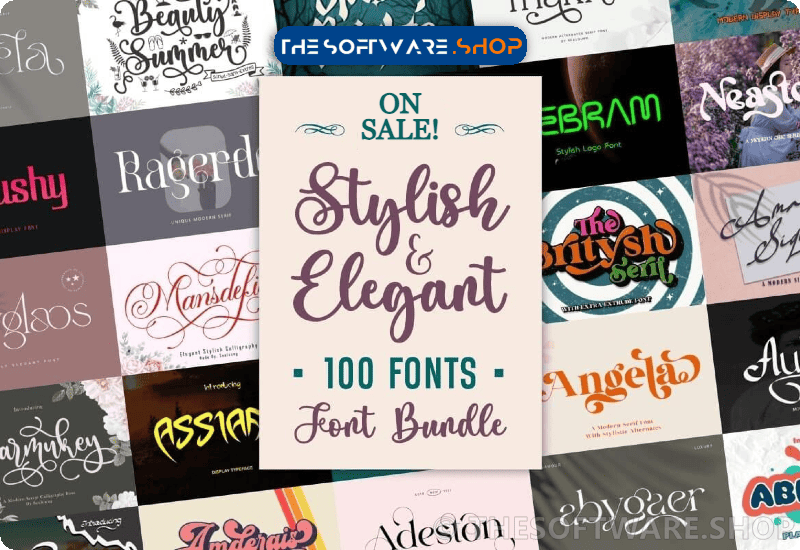
What is the Stylish & Elegant Font Bundle?
Except for empowering creativity, transforming your ordinary projects into eye-catching ones- it offers diversity right on your fingertips from romantic scripts to frightful displays!
Top Highlighted Fonts in the Bundle
The collection involves diverse types conforming to varying crafting needs well over hundred like:
- For an antiquely romantic aura where a mix of ‘Husband Romantic Script’ goes great with somber serif like ‘Asbigan Serif Fonts’.
- On festivities jolly as Christmas? The playful curve of ‘Kris Kringle Display’ font paired with beautifully stylistic “Christmas Time Script” is perfect!
- Are you into horror and all things scary? Perhaps the ‘Scary Ghost Display’ font might suffice your needs.
…and many more.
Premium fonts included in this bundle:
- Love Money Czcionki Skryptowe Czcionka
- Asbigan Serif Fonts Font
- Husband Romantic Script & Handwritten Font
- Belyna Script & Handwritten Font
- Sandelia Script & Handwritten Font
- Kris Kringle Display Font
- Mansdefia Script & Handwritten Font
- Nagista Script & Handwritten Font
- Angelina Script & Handwritten Font
- Little Aliens Display Font
- Adestone Font Serif Font Di Sealoung
- Vasmook Serif Font
- Mister Dogy Display Font
- Killega Serif Font
- Happy Easter Display Font
- Scary Ghost Display Font
- Hello Father Script & Handwritten Font
- Nergisha Serif Font
- Amderais Polices Manuscrites Police
- Giuconda Sans Serif Font
- Sugela Fuentes Serif Fuente
- Kambegi Serif Font
- Sakurata Display Font
- Abygaer Serif Font
- Britysh Display Font
- Myglaos Serif Font
- Ramadhan Amazing Polices d’Affichage Police
- Geraldyne Signature Script & Handwritten Font
- Christmas Time Script & Handwritten Font
- Rabenk Serif Font
- Beauty Summer Polices Manuscrites Police
- Battom Glory Blackletter Font
- Blondie Display Font
- Edhan Martine Serif Font
- Elyaris Serif Font
- Bodenk Display Font
- Barmukey Script & Handwritten Font
- Angela Serif Font
- Brithny Script & Handwritten Font
- Challiren Script & Handwritten Font
- Spooky Frights Display Font
- Hello Bucin Script & Handwritten Font
- Neastone Serif Font
- Lovelys Display Fonts Font
- Thaknus Serif Font
- Queen Display Fonts Font
- Amania Signature Script & Handwritten Font
- Ragerdo Serif Font
- Arithysh Eternal Script & Handwritten Font
- Domino Display Font
- Endellia Display Font
- Qebram Display Font
- Agoxes Game Display Font
- Sadeno Display Font
- Wuudy Cow Display Font
- Amellya Script & Handwritten Font
- Miss Mince Display Font
- Regasto Polices Serif Police
- Sweet Berlyn Script Fonts Font
- Envegas Serif Font
- Father Christmas Script & Handwritten Font
- Rayhed Display Font
- Deuglas Sans Serif Font
- Hello Moody Fuentes Display Fuente
- Stiffeny Maritta Script & Handwritten Font
- Belgian Serif Font
- Mr. Bodihel Display Font
- Saevul Serif Font
- Assiaam Display Font
- Balloon Duwoor Display Font
- Busero Polices d’Affichage Police
- Sageyl Serif Font
- Crazy Robot Display Font
- Weatsyam Script & Handwritten Font
- Santomyse Eridupes Skript-Schriftarten Schriftart
- Super Ulano Display Font
- Duralit Sans Serif Font
- Maferic Signature Serif Font
- Adaniya Script & Handwritten Font
- Gungaly Serif Font
- Gondes Display Font
- Maguire Sans Serif Font
- Love Rysma Display Font
- Badler Display Font
- Gafegus Serif Font
- Asgore Blackletter Font
- Arahma Script & Handwritten Font
- Magdelin Serif Font
- Sanderyna Script & Handwritten Font
- Ratushy Display Font
- Fastrace Fuentes Display Fuente
- Aulidah Script & Handwritten Font
- How diverse are the fonts in this bundle? These reach well over 100 types catering numerous occasions/styles – from romantic scripts like ‘Husband Romantic’ onto seasonal like ‘Kris Kringle Display’, spooky styles are even provided as within ‘Scary Ghost Display’!